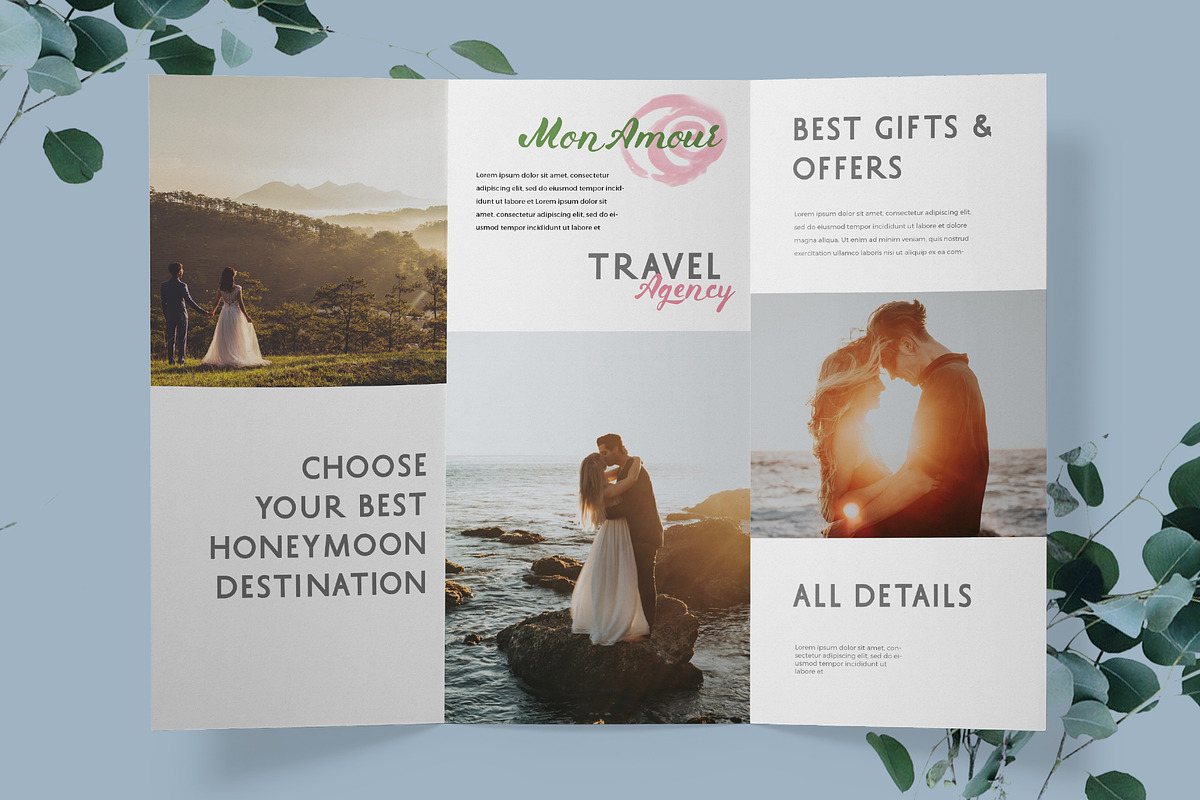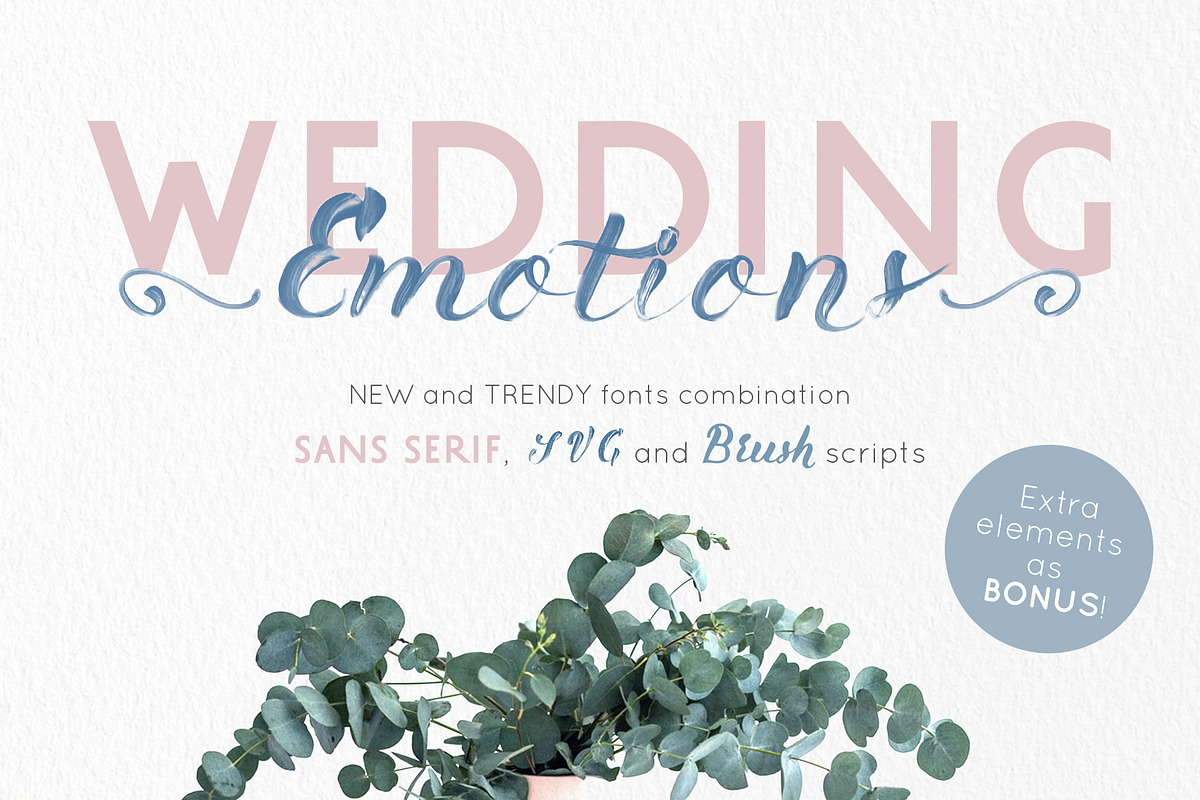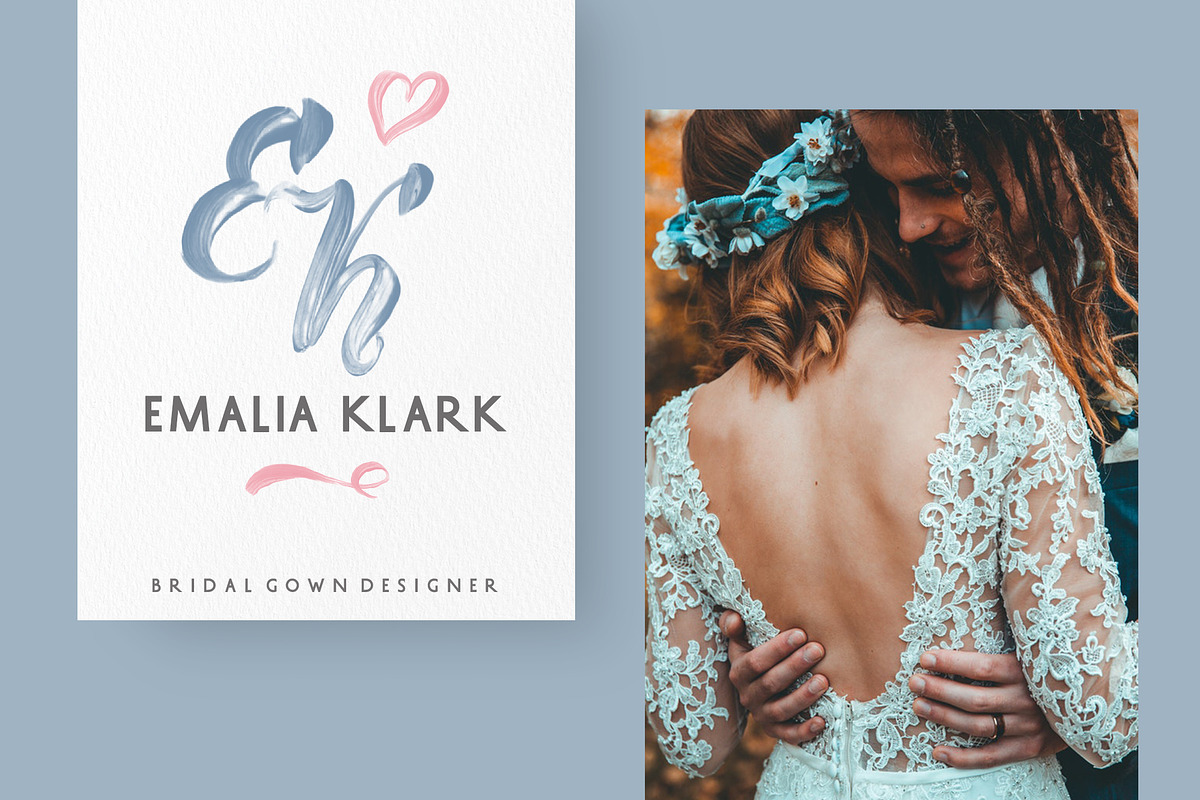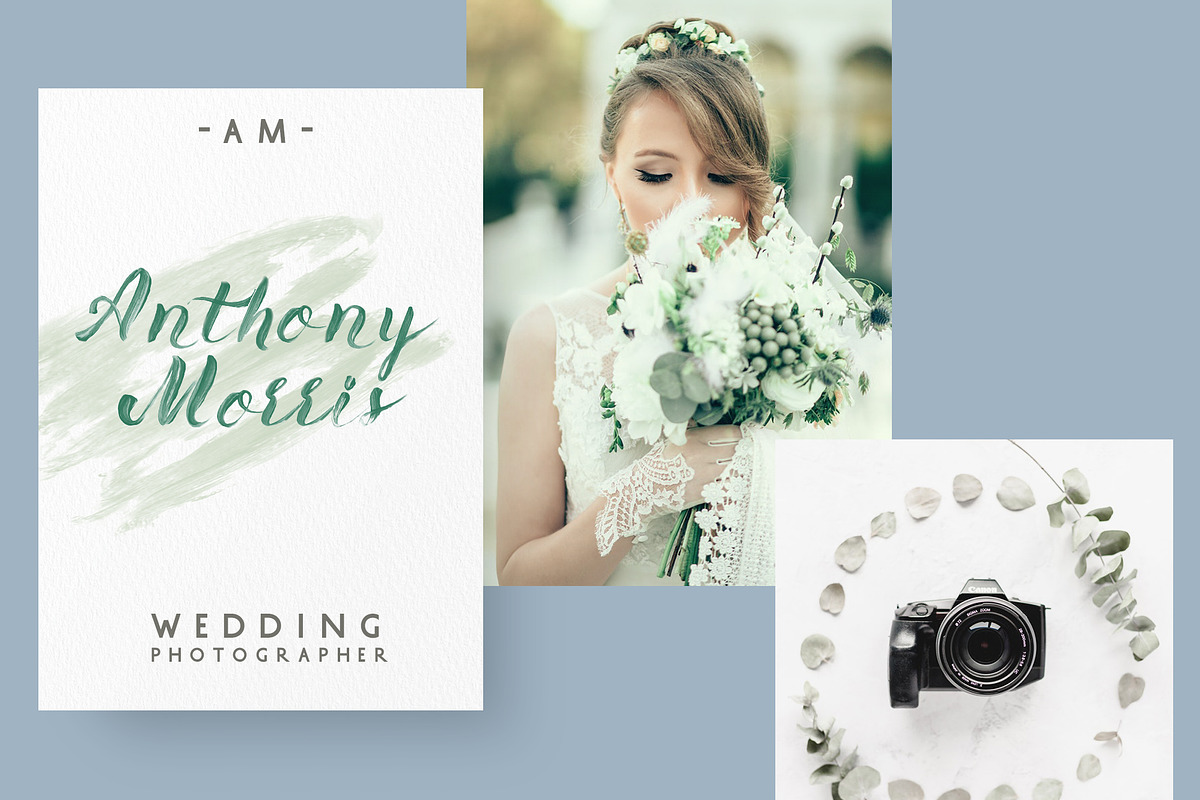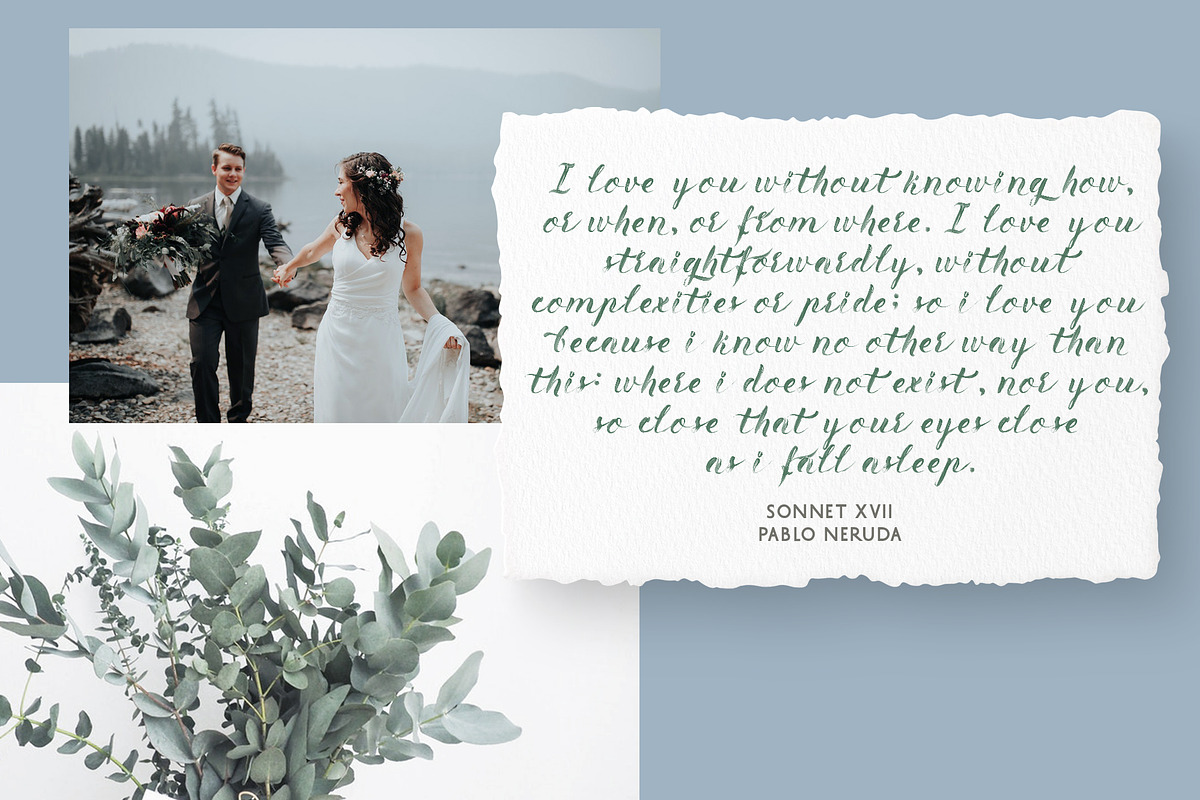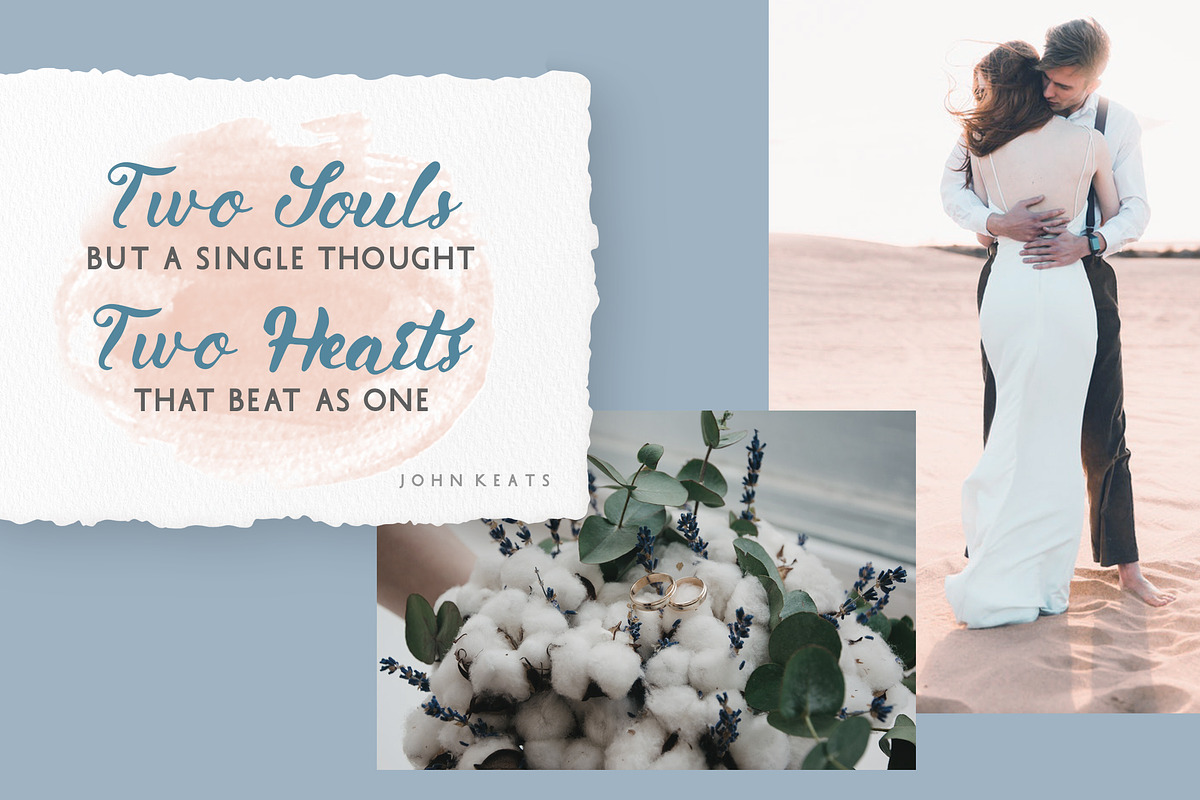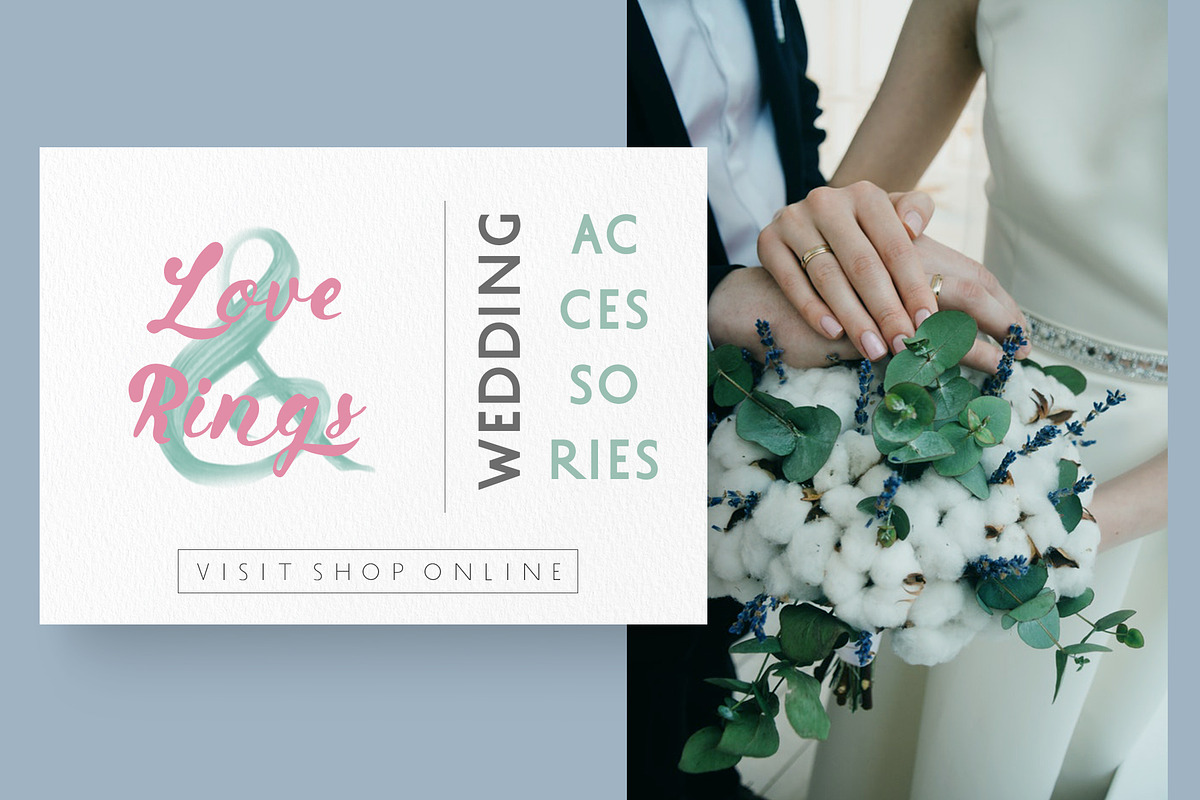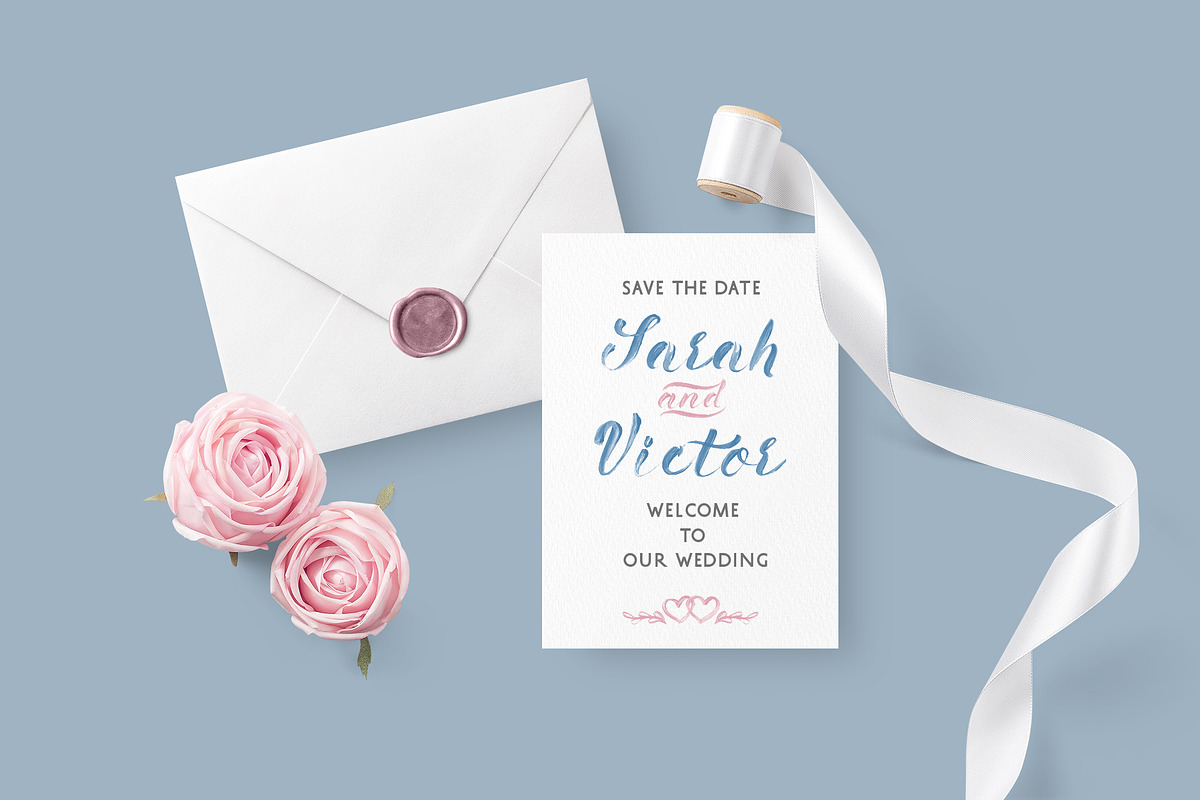
Emotions sans serif and SVG font duo
Are you looking for unforgettable emotions? Emotions SVG, Brush and Sans Serif fonts combination with extra elegant elements and symbols will help you to create special and touching typographical design for the happiest day in life. It is really new and trendy, universal and modern fonts combination! The owner of endless possibilities!
It is perfect for multiple contexts. Works great in posters, logos, headlines, packaging, advertising, branding and so much more. This font will easily help you to create the best romantic, urban or rustic, elegant or dynamic designs.
The Emotions Collection consists of:
Emotions Brush - vector detailed font with extra elements for design
Emotions Regular - SVG brush painted font
Emotions Symbols - 67 SVG brush painted elements for design (hearts, leaves, swashes and more)
Emotions Multilingual - SVG brush painted language support
Emotions Sans Serif Font
Emotions Brush has traditional regular vector format.
Emotions SVG font is an unique collection of ultra-textured and transparent SVG paintbrush letters and symbols. This font will help you to make your projects trully hand-painted realistic and natural.
Emotions SVG and Brush fonts both have uppercase and lowercase letters, numbers & basic punctuation, multiligual support (French, German, Italian, Norwegian, Portuguese, Spanish, Swedish, Swiss German).
Emotions Sans Serif font has uppercase letters, numbers & basic punctuation, multiligual support (French, German, Italian, Norwegian, Portuguese, Spanish, Swedish, Swiss German).